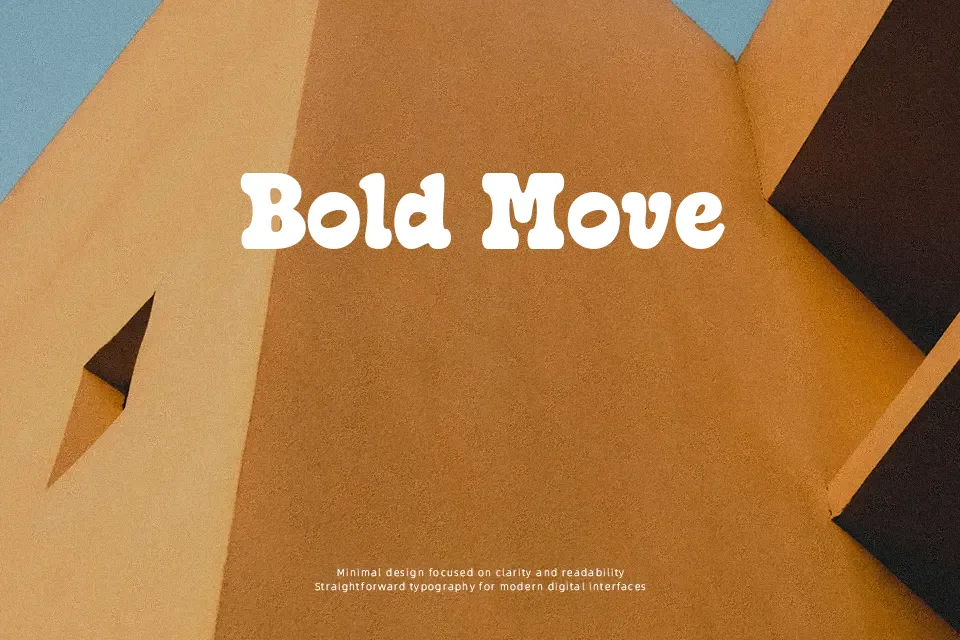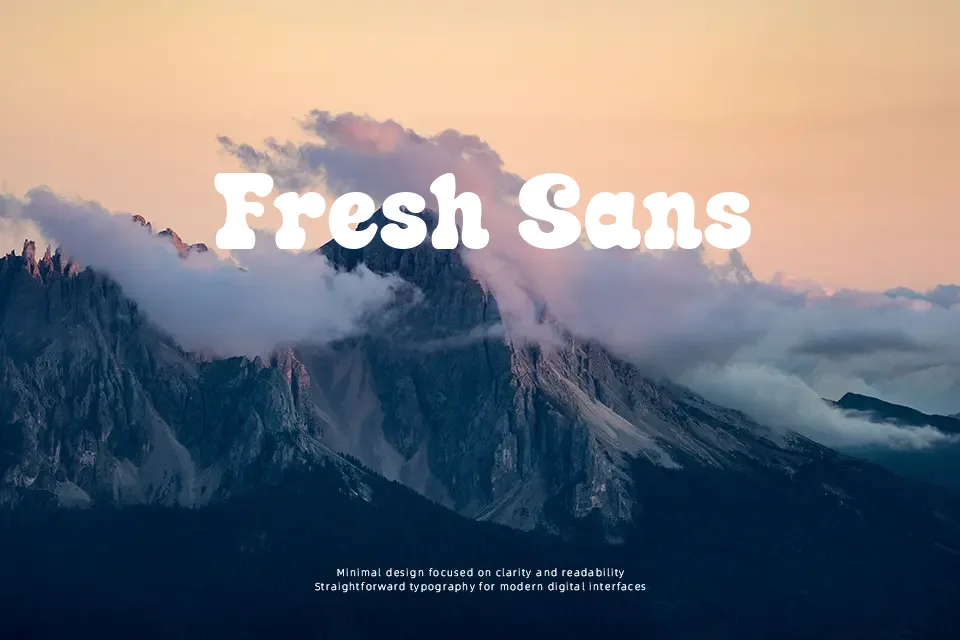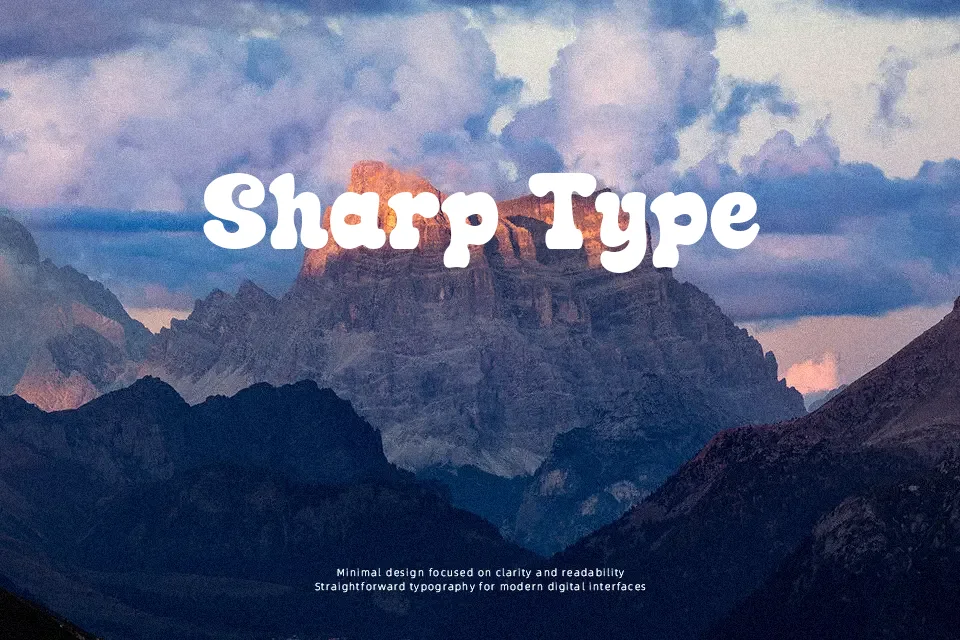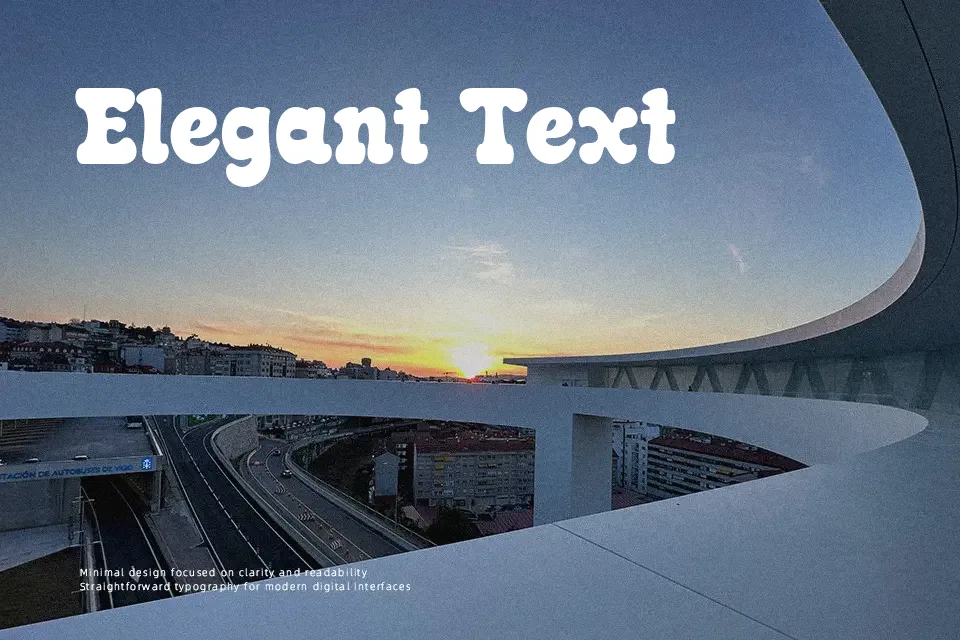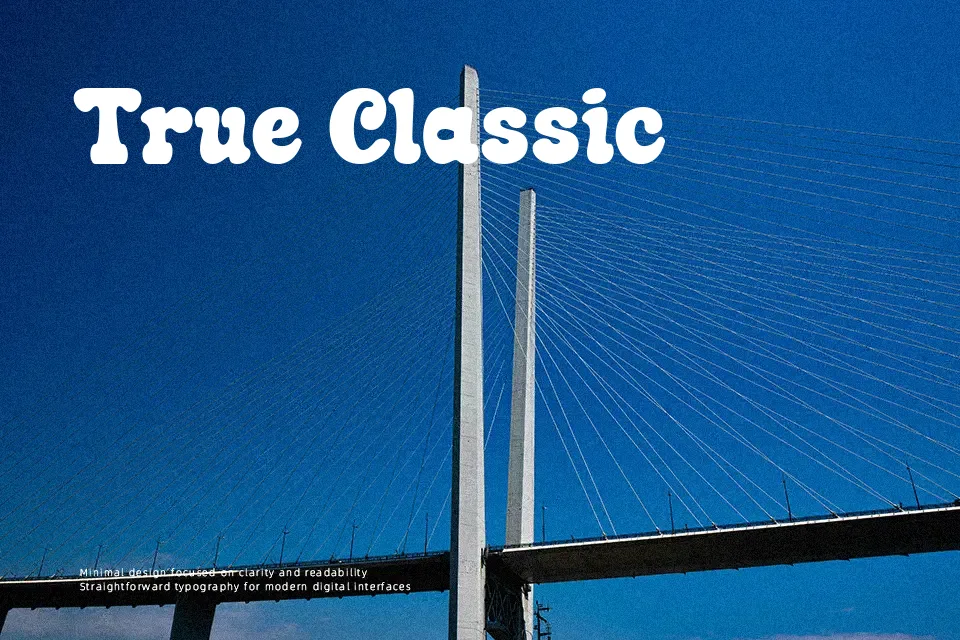
Super Golden Font
Super Golden Font establishes an imposing visual presence through its substantial slab serifs, pronounced central spurs, and generous character widths. Thick consistent strokes and compact horizontal spacing generate strong typographic density across headline layouts, while the sturdy stems anchor each glyph firmly. The letterforms remain remarkably legible in short phrases, festival banners, and rustic packaging labels where immediate visual recognition matters most. Dense character counters and decorative flourishes cause severe letter clashing when scaled down to smaller reading sizes. The bold structural presence ensures maximum optical impact across oversized promotional layouts.
Best For: vintage product packaging,retro poster headlines,themed restaurant menus,apparel graphics
Not Ideal For: long paragraph text,mobile user interface labels,dense editorial layouts,technical documentation